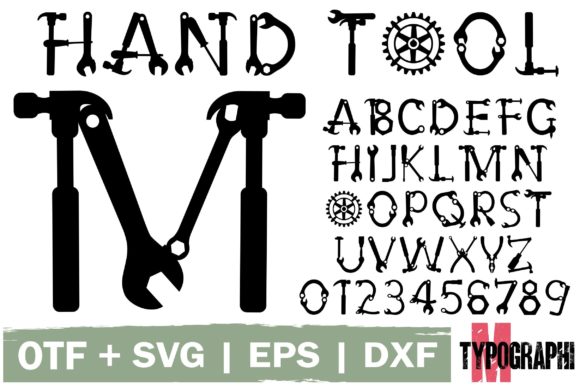
Looking for the best font to complement your male tattoos? Look no further than Hand Tool Font, created by the talented team at Typography Morozyuk. This decorative typeface celebrates the beauty and technical intricacy of tool shapes, resulting in a playful yet striking font that will elevate any design project.
With its bold, attention-grabbing lines and unique style, Hand Tool Font is perfect for anyone looking to make a statement with their typography. Whether you're designing a logo, creating marketing materials, or adding text to your latest tattoo design, Hand Tool Font is sure to leave a lasting impression.
One of the most exciting things about Hand Tool Font is its versatility. This font can be used in a wide range of contexts, from industrial designs to vintage-themed projects. Its unique aesthetic is sure to catch the eye of anyone who sees it, making it the perfect choice for those looking to stand out from the crowd.